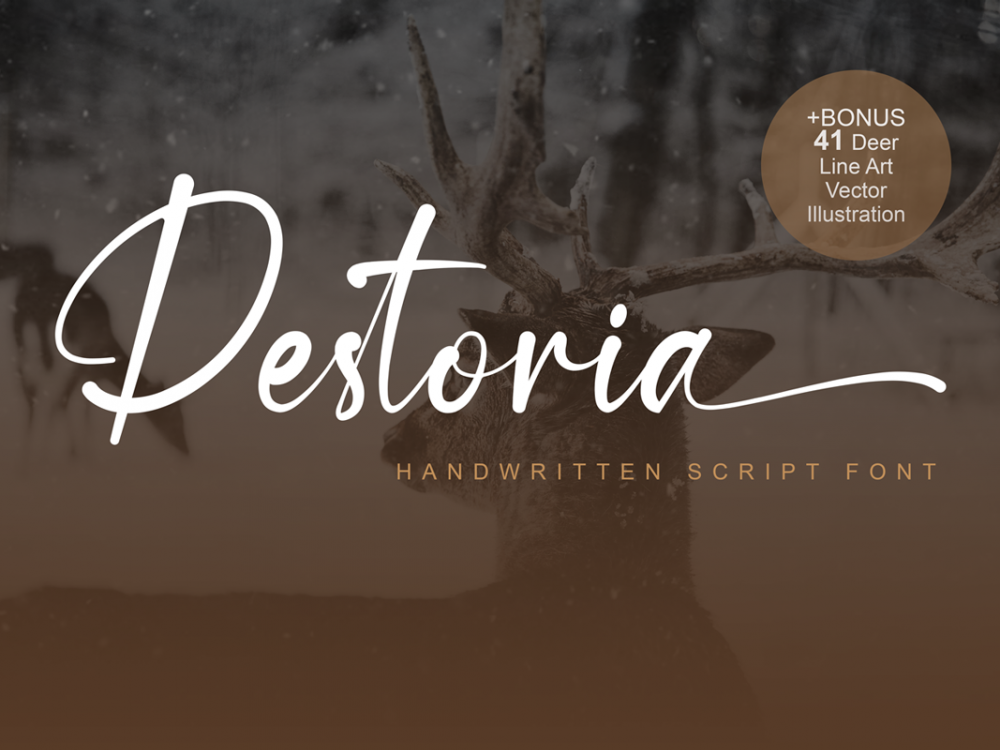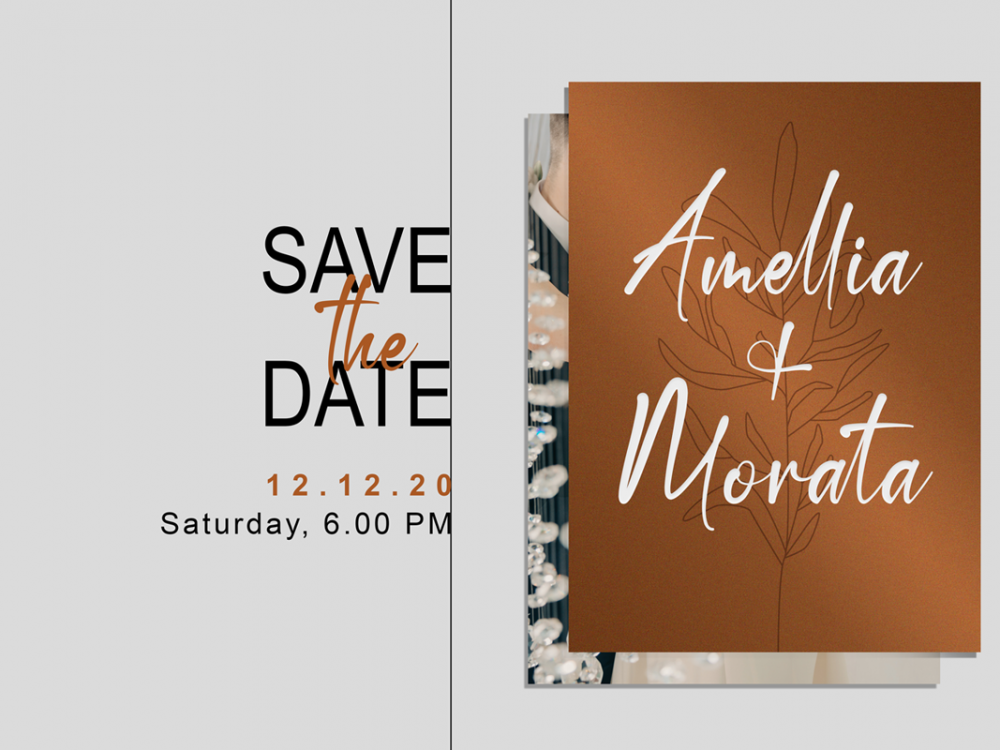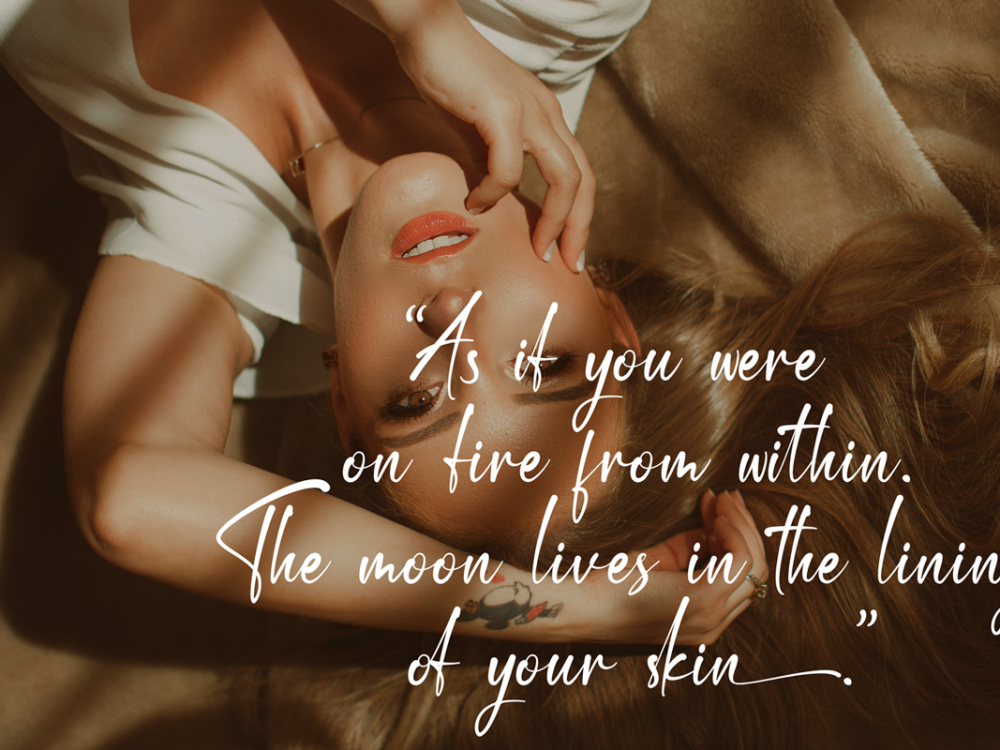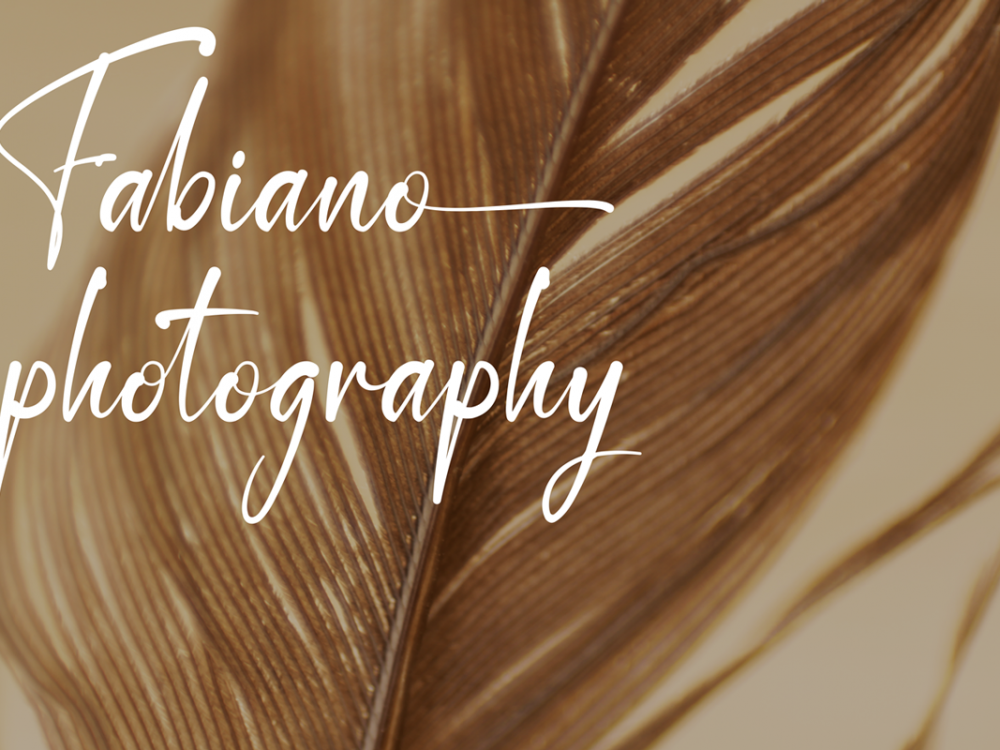
Destoria Free Font
Destoria Free Font is an interesting, fresh calligraphic font with an elegant style. This font is very suitable for creating various projects that require a script font. You can use this font to create memorable posters, wedding invitations, greeting cards, branding, flyers, t-shirt and pillow prints, and more. If you like it don’t forget to check out the full version.